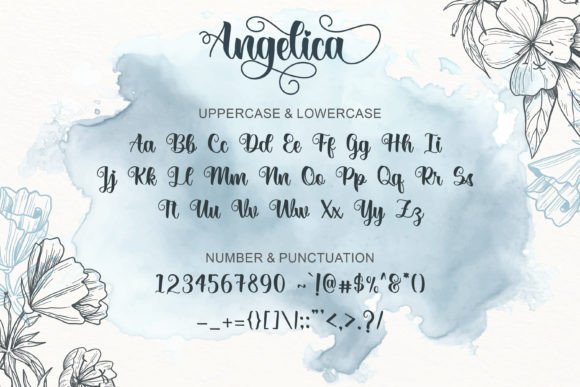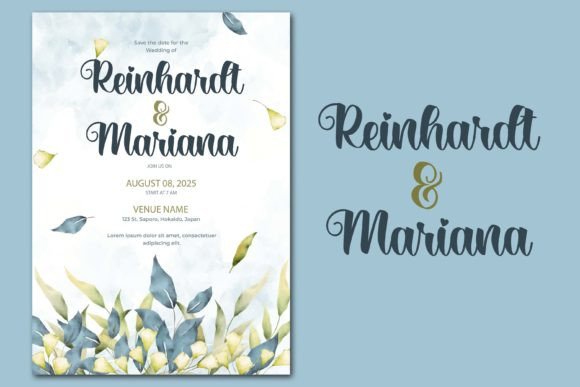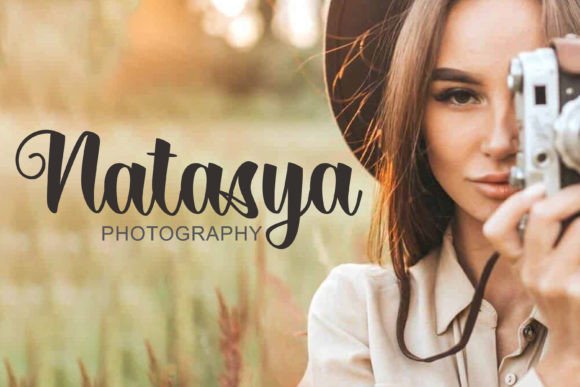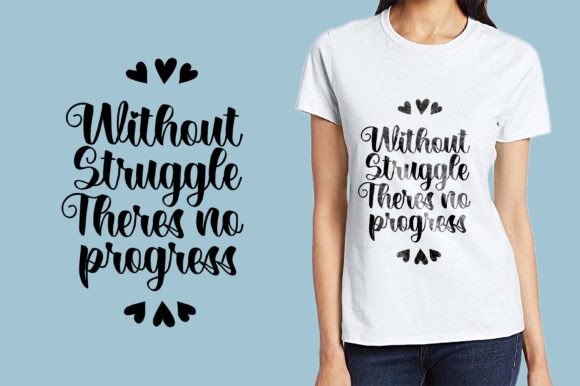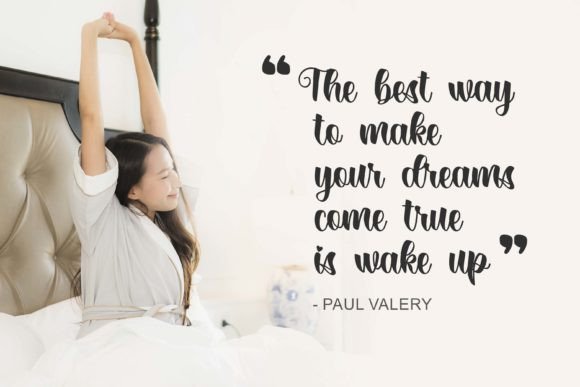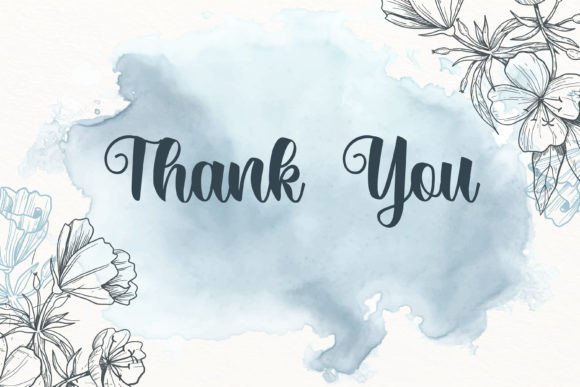
Angelica Font
About Angelica Font
Angelica Font is a delicate handwritten typeface designed to bring a soft, graceful touch to any creative project. With its carefully crafted letterforms, Angelica delivers a unique blend of elegance and personality that sets your designs apart. This font is perfect for adding a warm, handwritten feel that feels authentic and welcoming.
Whether you’re creating invitations, product packaging, or social media graphics, Angelica provides the perfect balance of style and readability. Its smooth lines and gentle curves make it an excellent choice for designers who want to add a special handwritten taste to their work.
Handcrafted with Care
Angelica’s letters have been thoughtfully designed to mimic real handwriting. Each character features subtle variations and flowing strokes that create an organic, natural feel. This makes the font look as if it were written by hand, adding a personal touch to any design.
When you use Angelica, your projects instantly feel more intimate and genuine. From heartfelt letters to elegant product labels, this font helps you connect with your audience in a meaningful way.
Versatile for Many Projects
One of Angelica’s greatest strengths is its versatility. You can use it across a wide range of applications, both print and digital. Here are a few ways to put Angelica to work:
• Invitations: Create beautiful wedding invitations or party announcements that feel warm and inviting.
• Branding: Design unique logos that capture your brand’s personality with a delicate touch.
• Food Packaging: Add a handmade feel to product labels and packaging designs.
• Quotes & Titles: Highlight inspirational messages with graceful lettering.
• Stationery: Personalize notecards, thank you cards, and gift tags.
• Social Media Graphics: Make your posts stand out with a distinctive handwritten look.
• Website Banners: Design captivating headers that grab attention.
No matter what you create, Angelica brings a soft elegance that elevates every project.
Angelica is fully PUA encoded, which means you can easily access all its glyphs, ligatures, and alternate characters. This makes it simple to customize your text and add stylish flourishes without extra effort.
Make an Impact with Handwritten Charm
Angelica isn’t just another script font—it’s a way to infuse your designs with emotion and artistry. Whether you’re creating a heartfelt note or a premium product label, Angelica’s handcrafted elegance ensures your work stands out.
If you want your typography to feel personal and authentic, this font is the perfect solution.
Why Choose Angelica Font?
• Authentic Handwritten Style: Looks warm and natural.
• Versatile: Works beautifully across many design projects.
• PUA Encoded: Access all swashes and alternates easily.
• Memorable: Adds a soft, elegant touch to your work.
With Angelica, you can create designs that feel genuine, stylish, and unforgettable.